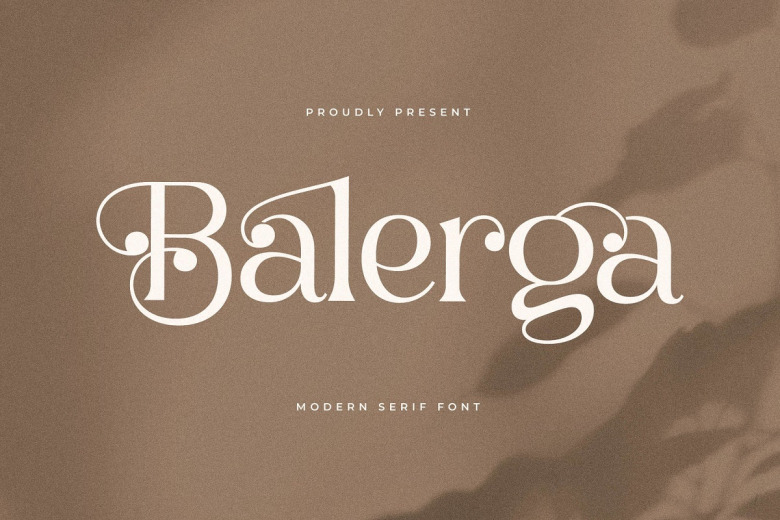
Balerga Font
Balerga is a stylish and luxurious serif or transitional typeface. This font has just the right amount of trendy to set your next project apart and that touch of the modern is what sets it apart from the most classical alternatives out there.
Balerga Serif Font